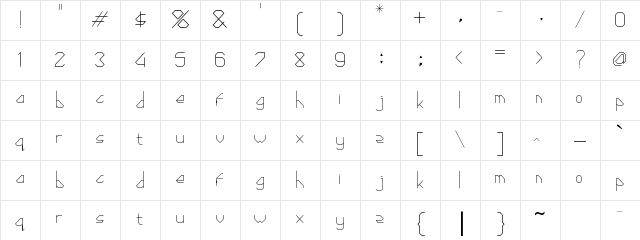
Diamond Cut Regular Free Font
Diamond Cut Regular
Designer: Yanto Purnomo
Year: 2011
Design Context for Diamond Cut
Diamond Cut is a composed and adaptable typeface that performs quietly and consistently across a wide range of design contexts.